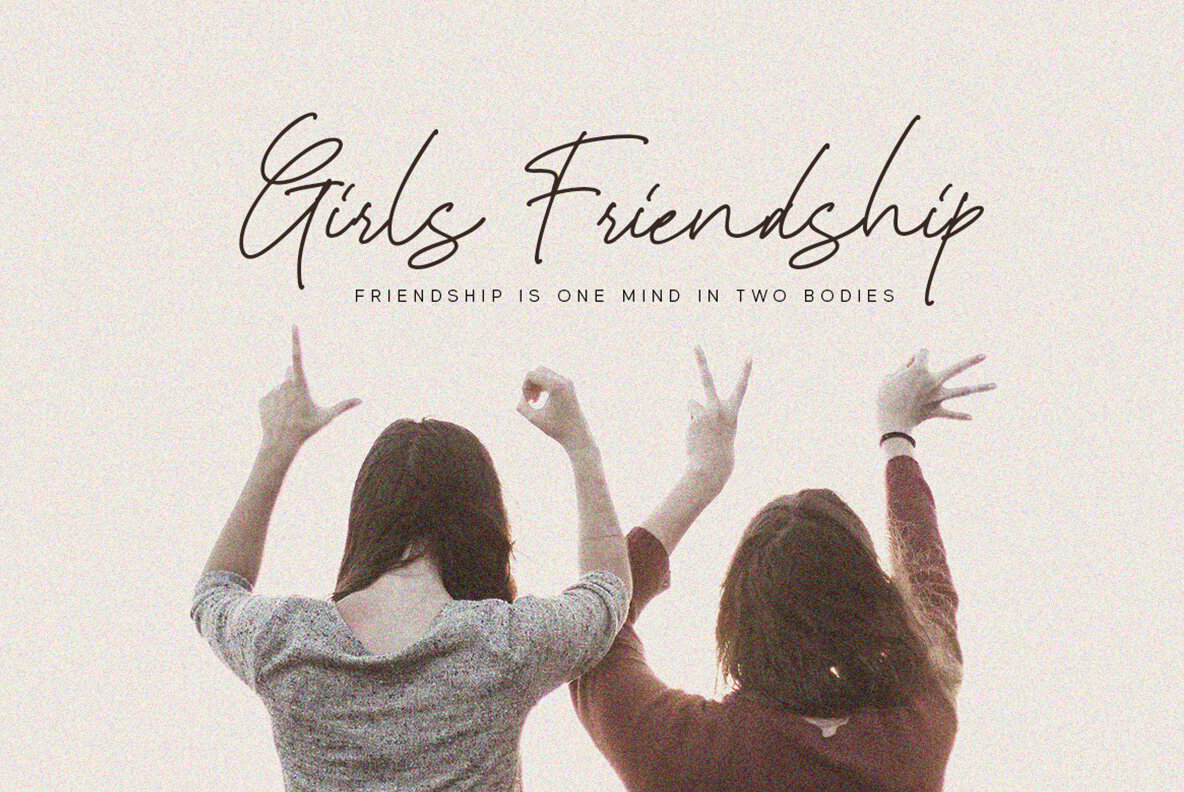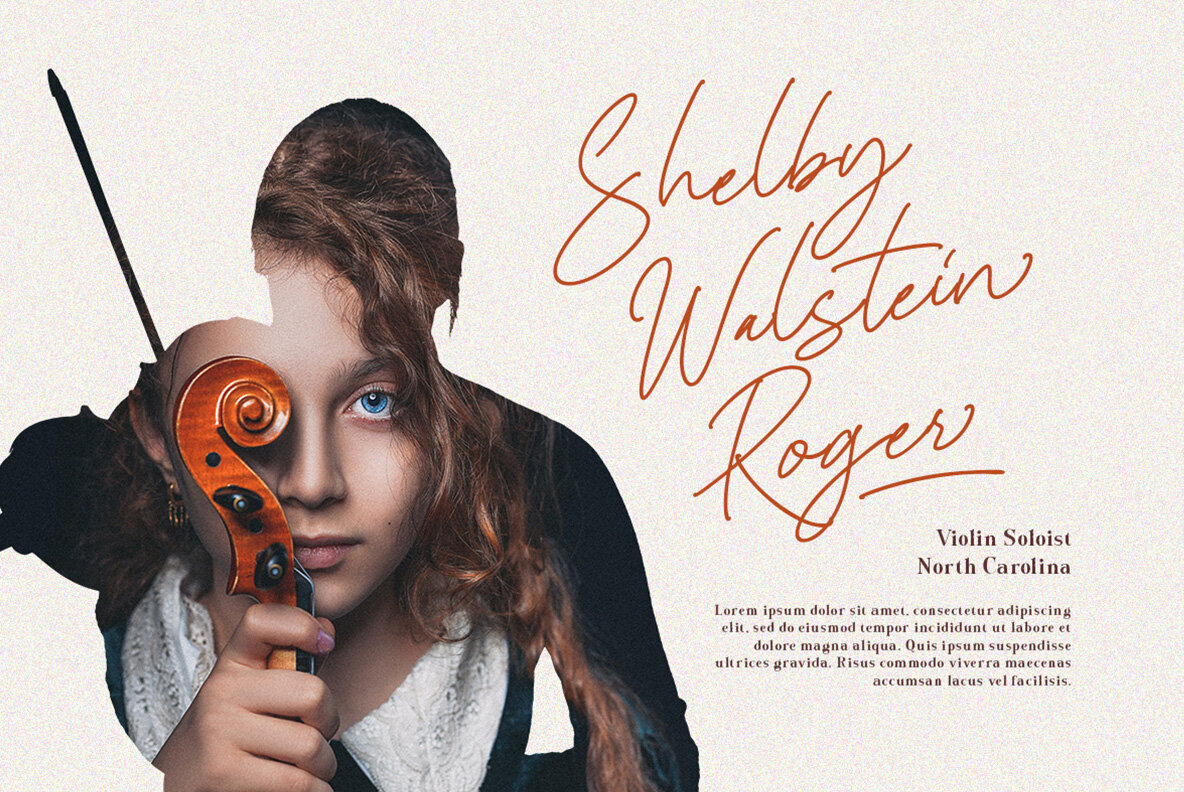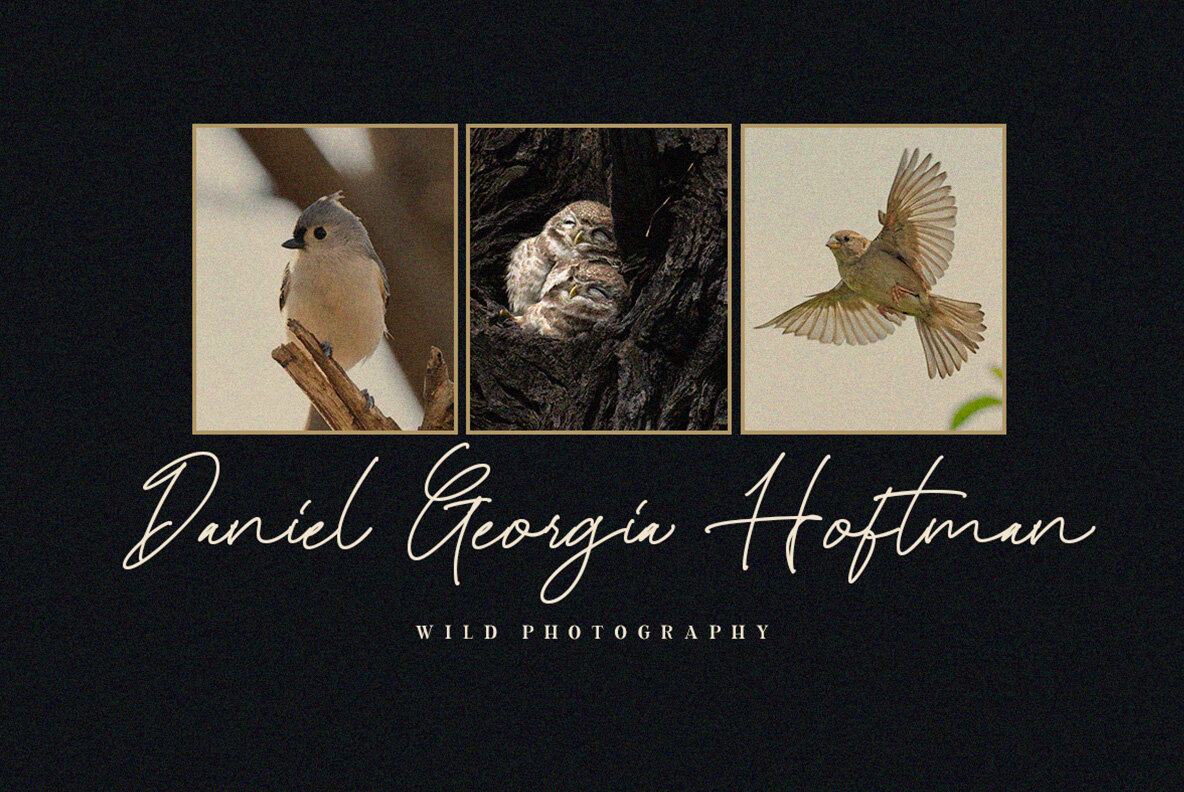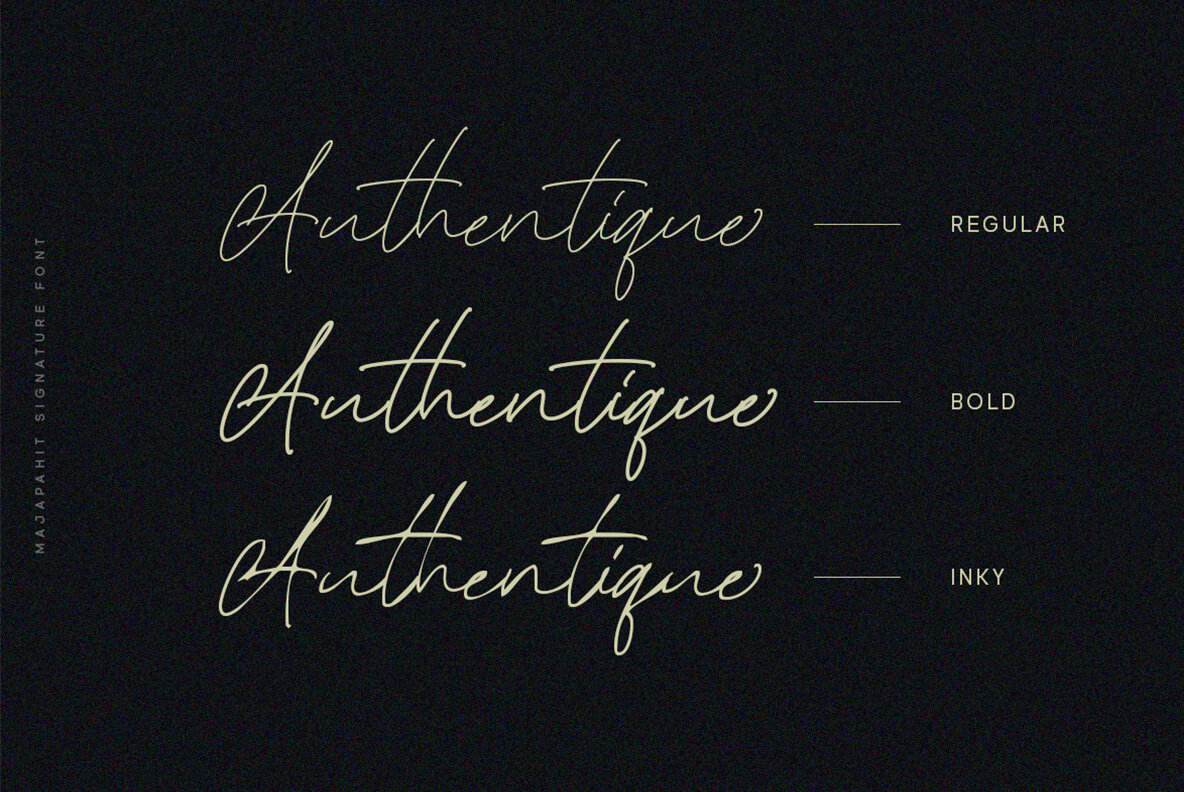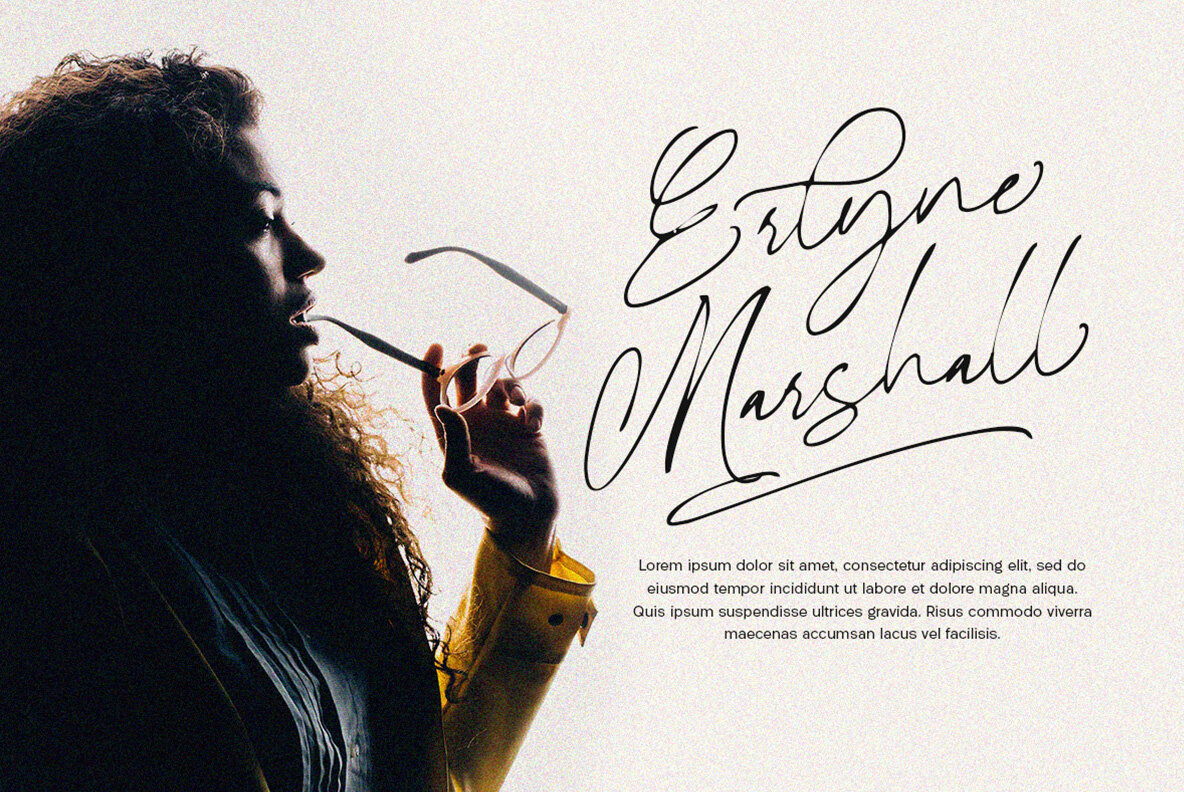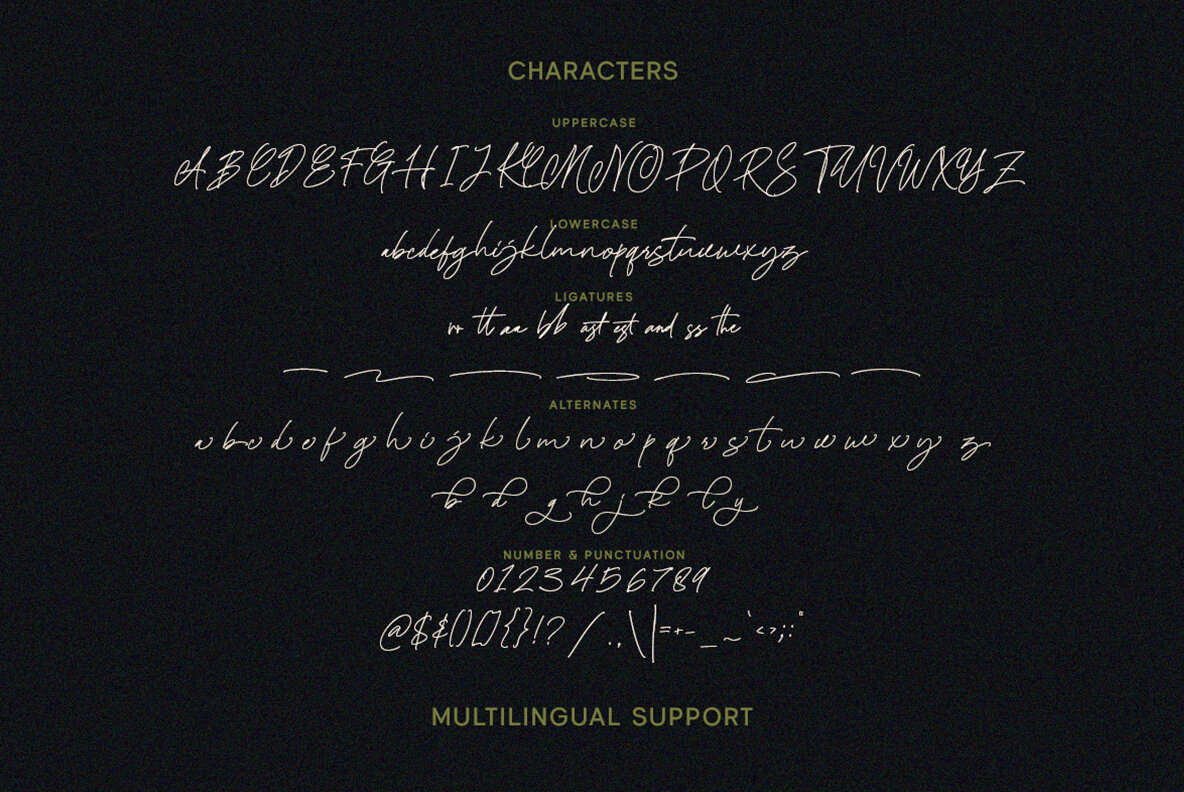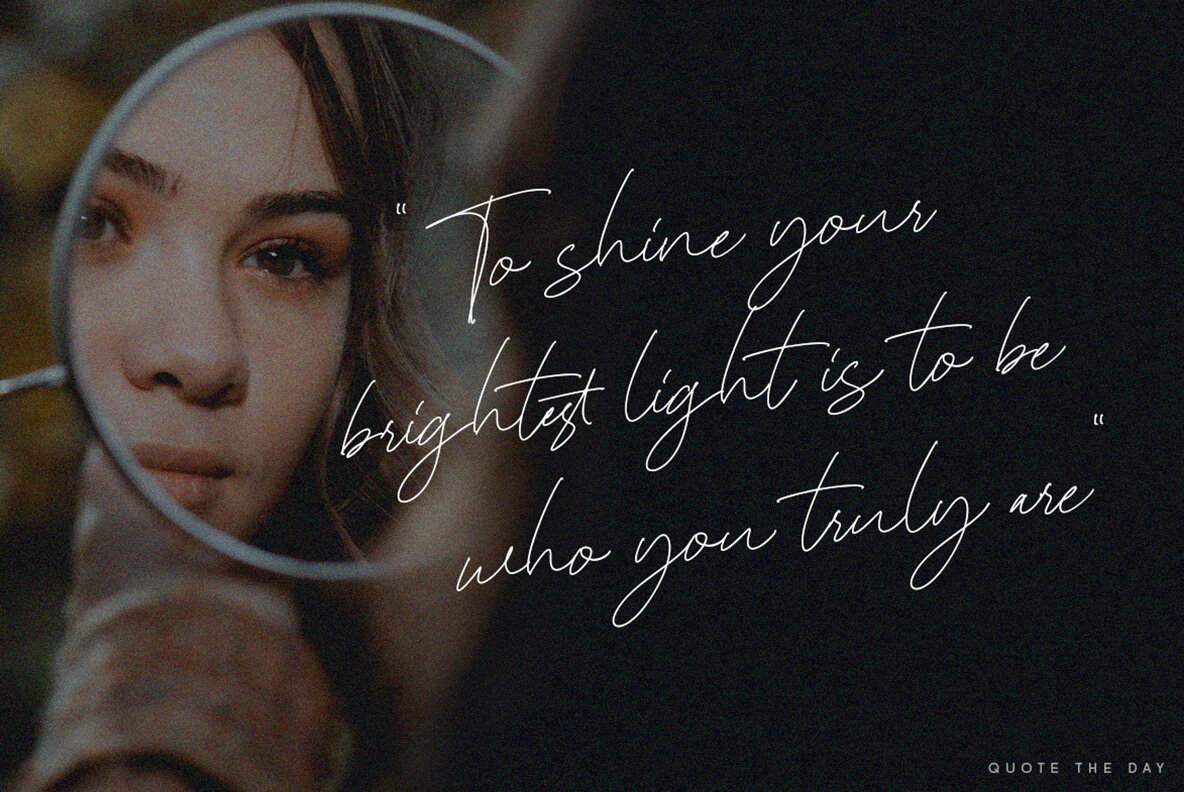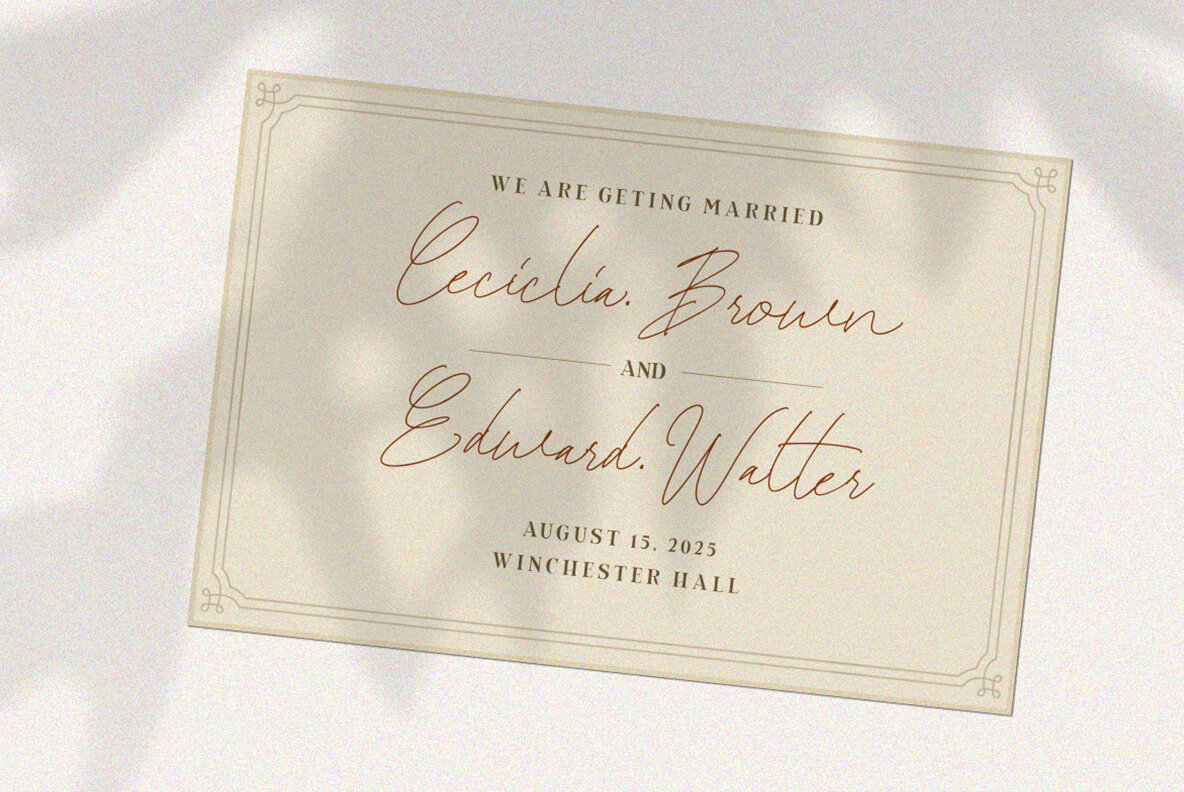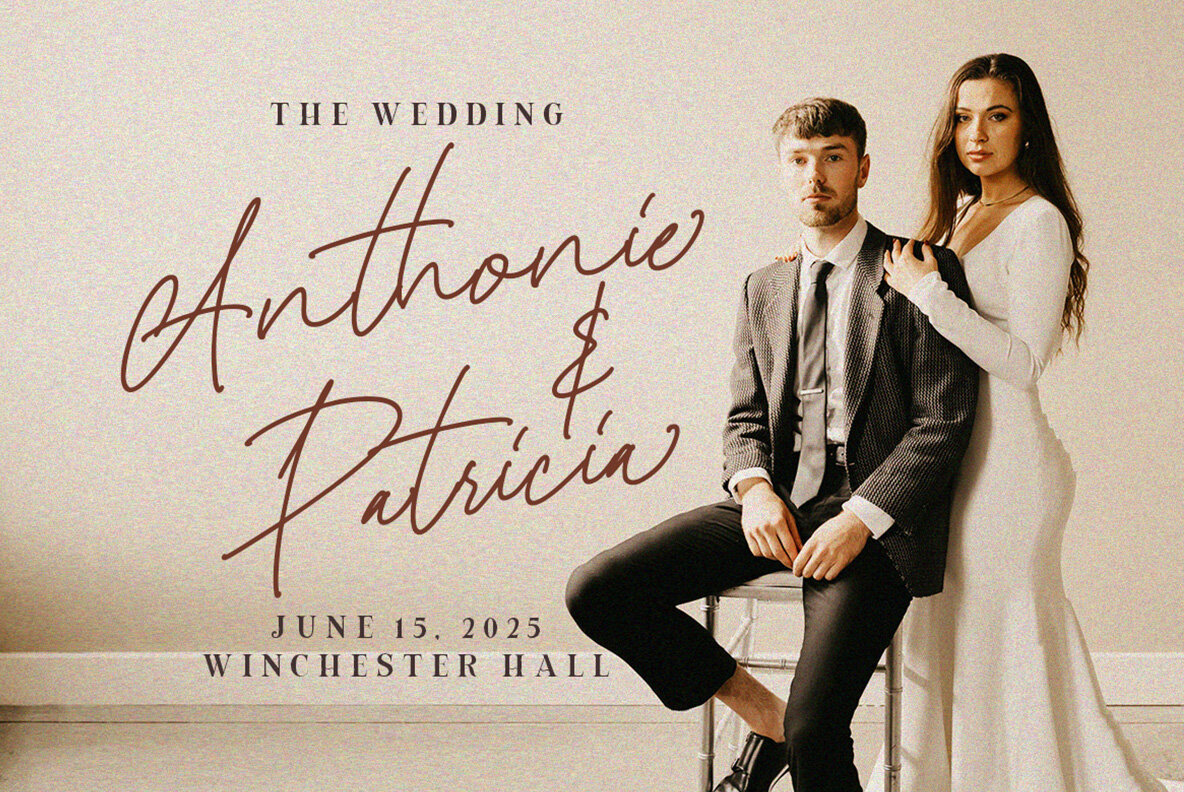
Majapahit Font
The Majapahit font exudes elegance and sophistication, derived from its meticulously crafted hand-written style. This signature script typeface offers three distinct font styles, each tailored to enhance your creative projects. Ideal for creating standout logos, it seamlessly fits various formal applications, from invitations and labels to editorial design in magazines and books. Perfect for any setting that demands attention and personalization—including greeting and wedding cards, packaging, fashion, and more. For optimal use, we recommend employing software that supports OpenType features, such as Adobe Creative Suite or Corel Draw. This ensures full access to its extensive array of Glyphs and design variations. Discover how to maximize OpenType features by visiting Letterhend Studio's tutorial page. Majapahit: Elegant Signature Script for Diverse Applications